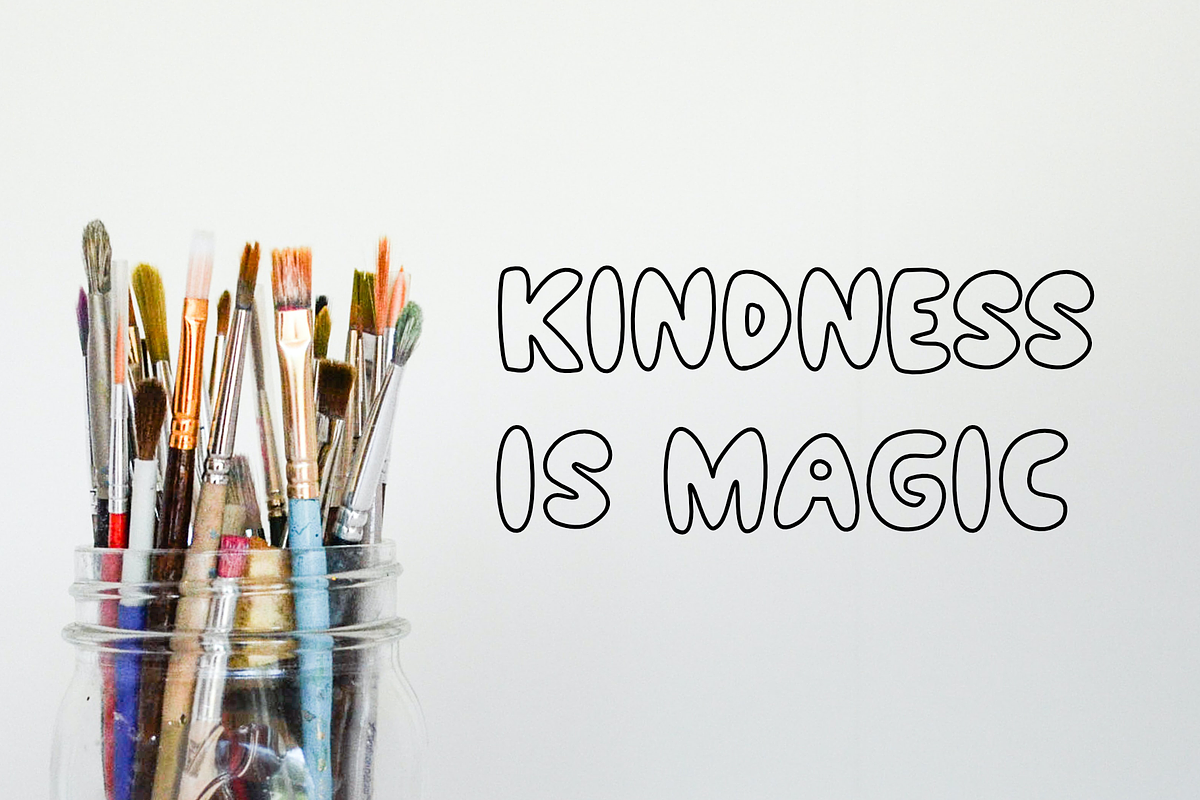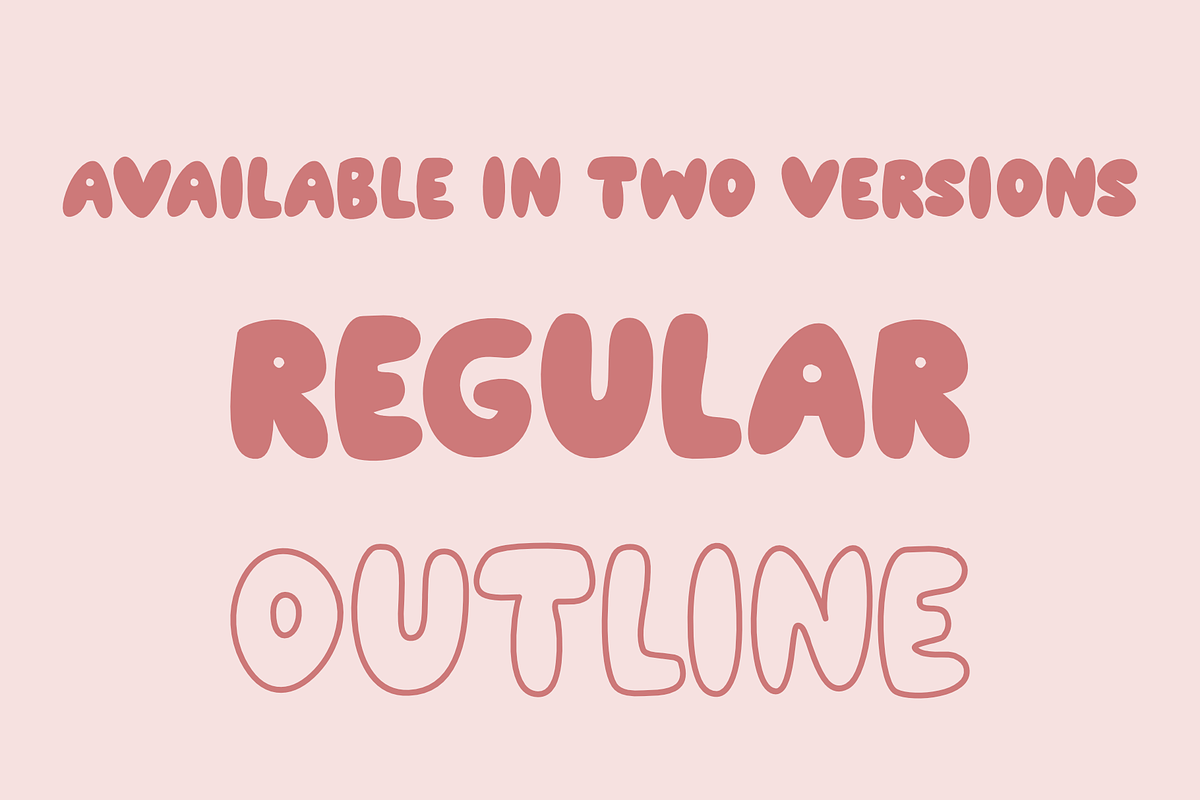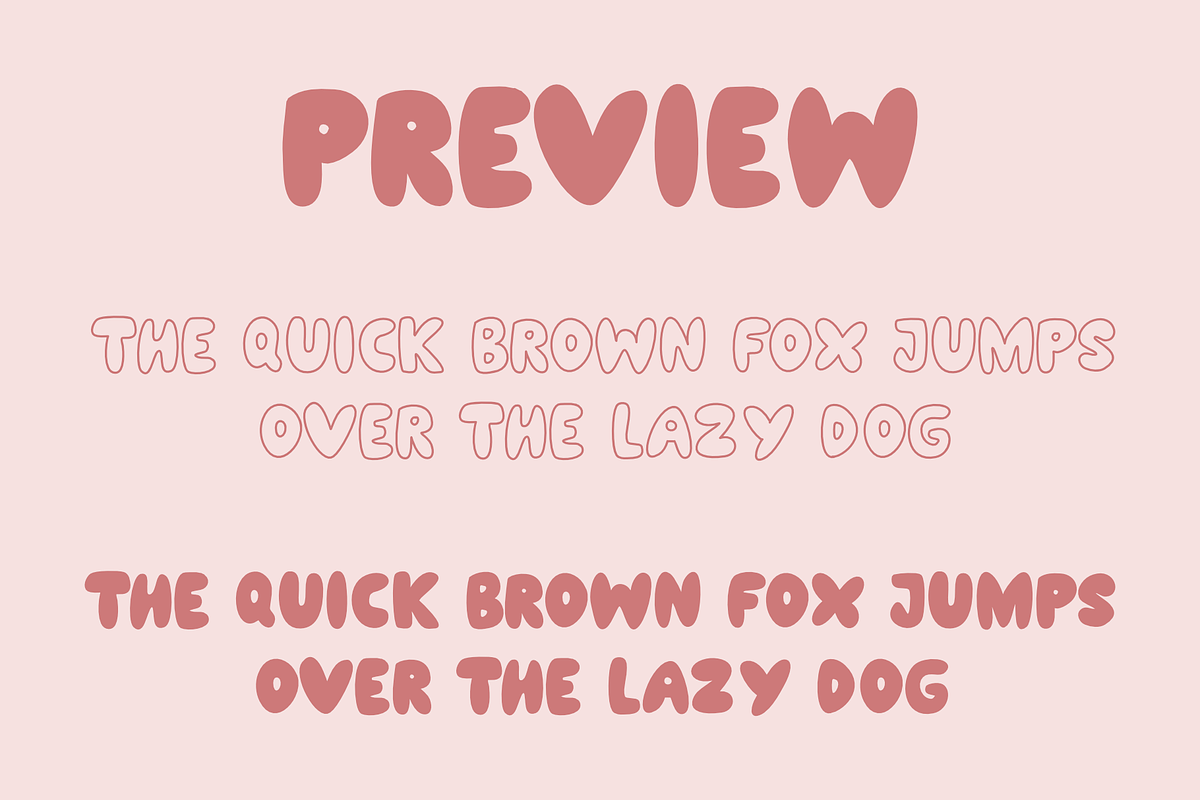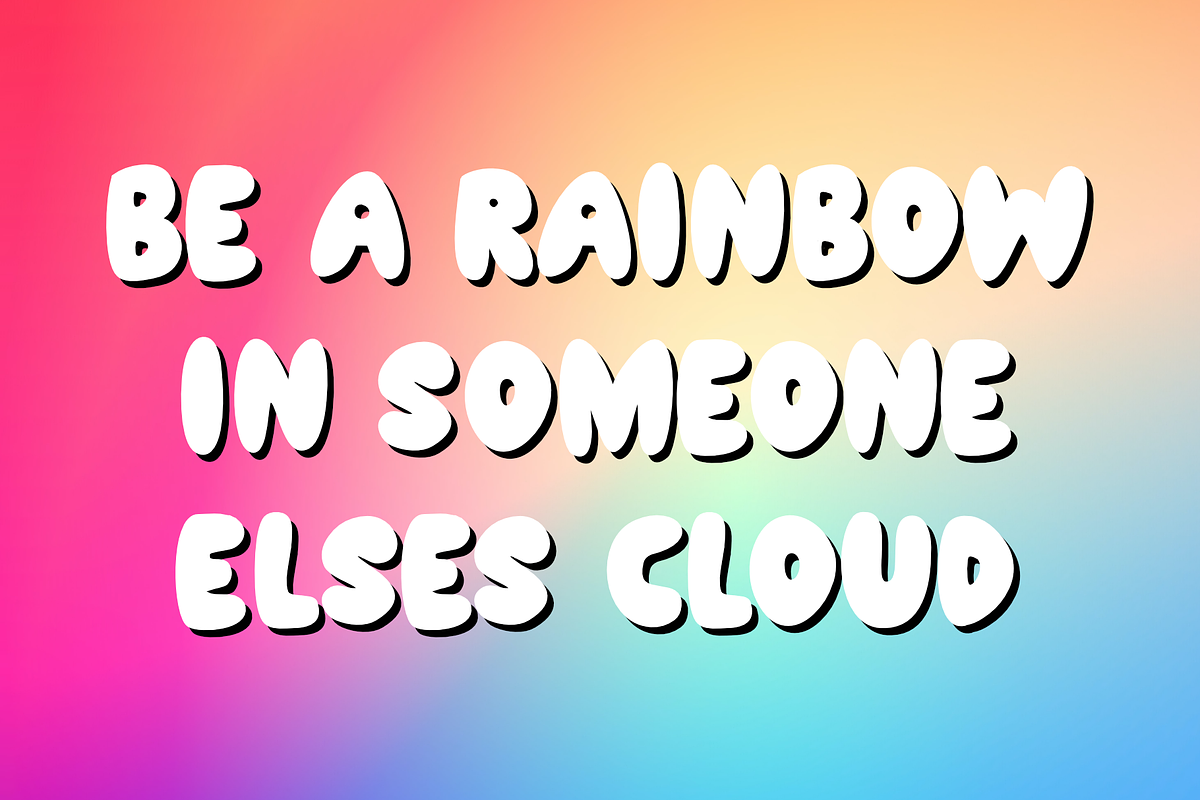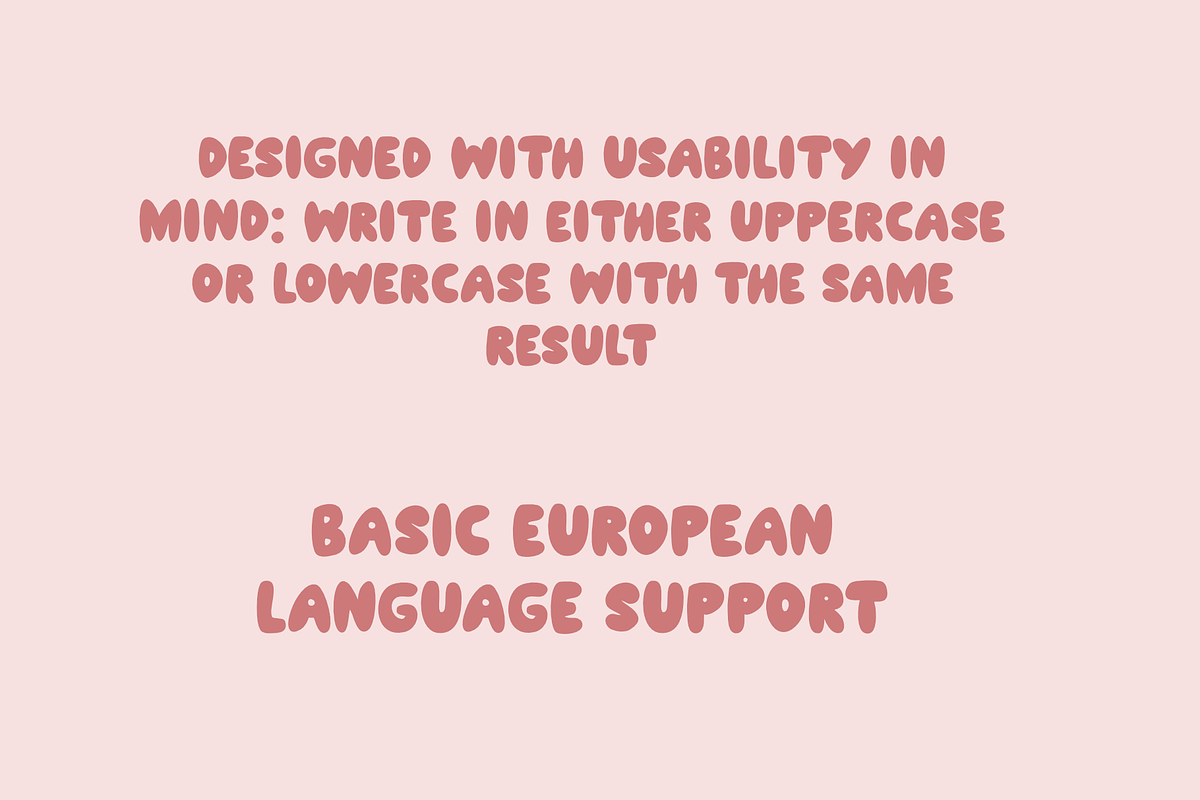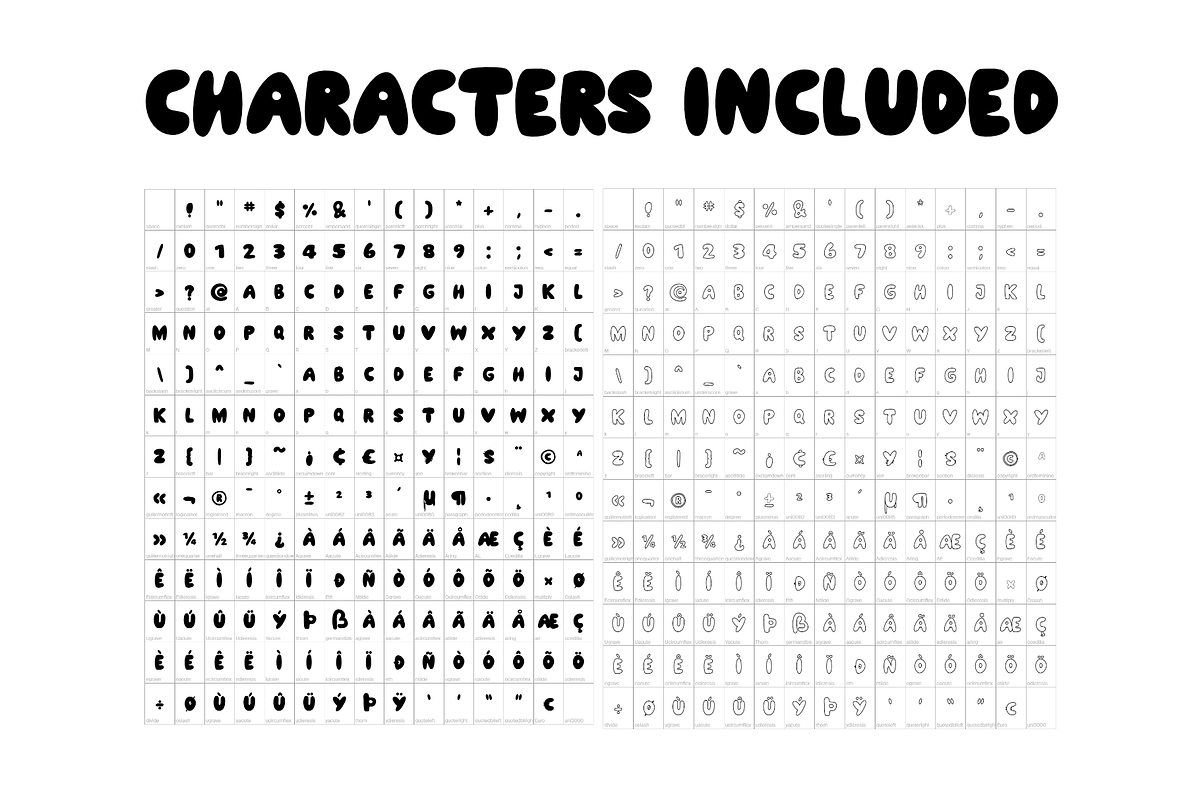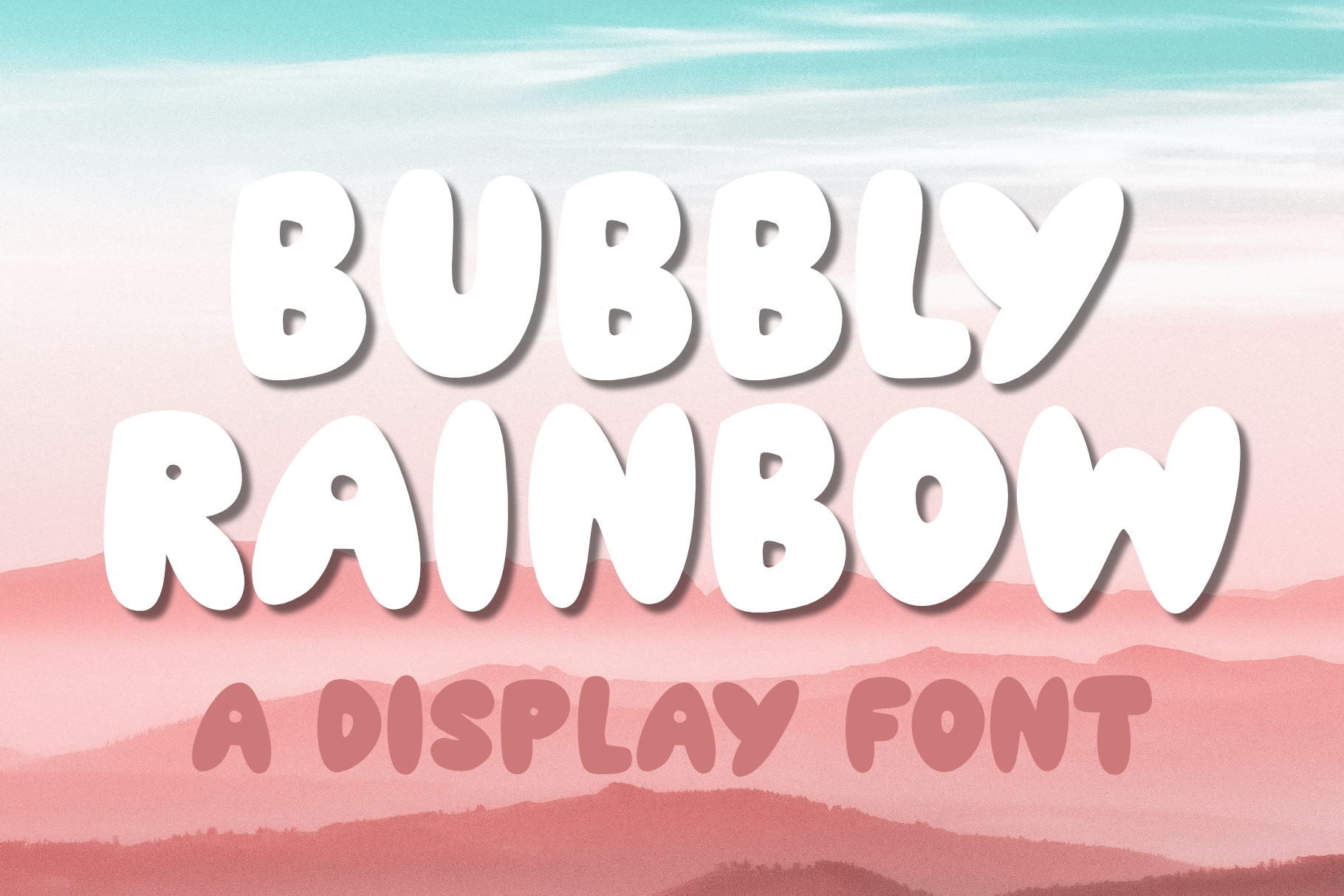
Bubbly Rainbow | A fun display font
Bubbly Rainbow is a fun handmade font with a popular bubble style of lettering.
It's made so that you can write in either lowercase or uppercase and get the same beautiful result, with minimal effort.
Multilingual support is included for Western European languages. For a full list of included characters, see the character map.
COMES IN TWO STYLES: -Outline -Regular